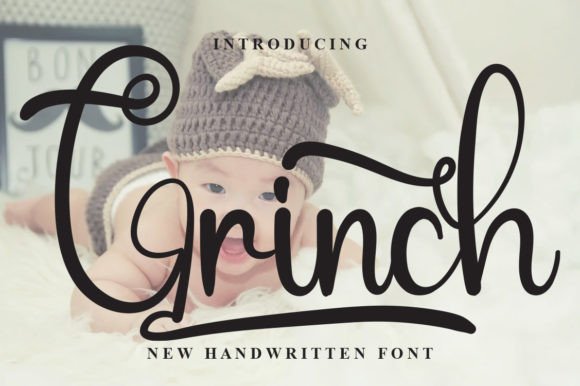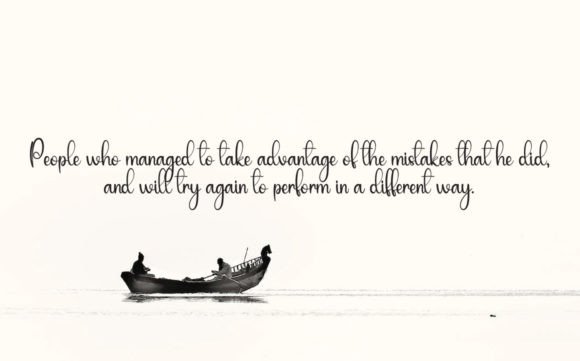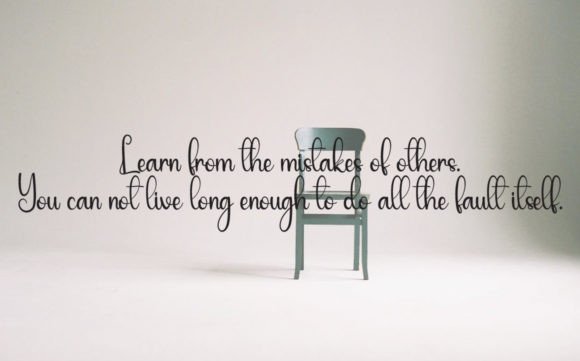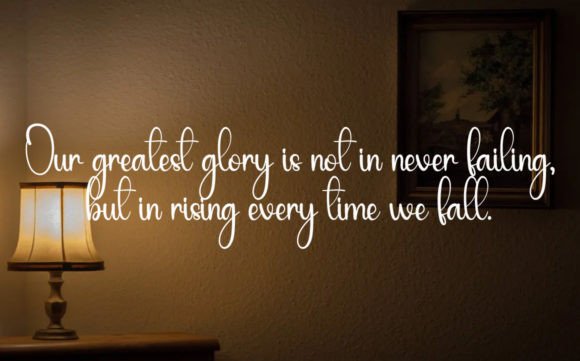
Grinch Font
Add Simple Charm with Grinch Font
The Grinch font is a simple and cute handwritten script designed to bring a natural and friendly feel to your creative projects. Whether you’re designing greeting cards, headlines, invitations, posters, or social media content, Grinch adds warmth and approachability to your work.
Perfect for Greeting Cards, Headlines, and Invitations
The Grinch font shines in various applications such as personal stationery, event invitations, social media graphics, and print projects. Its clean and balanced strokes create a fresh and inviting atmosphere, ideal for casual and heartfelt designs.
A Handwritten Script with Natural Flow
Each character in the Grinch font is carefully crafted to deliver smooth, readable strokes that blend simplicity with style. This font combines charm and clarity, making it suitable for both large headlines and detailed text elements.
Despite its simple design, the Grinch font maintains excellent readability at various sizes. Whether used for logos, titles, or smaller text, it balances clarity with a natural feel, making it a versatile choice for many creative projects.
Make Your Designs Shine with Friendly Simplicity
Typography plays a crucial role in setting the mood of your design, and Grinch adds a warm and approachable spirit. If you want to enhance your projects with a simple and cute handwritten script, download the Grinchfont today and create delightful, memorable visuals.